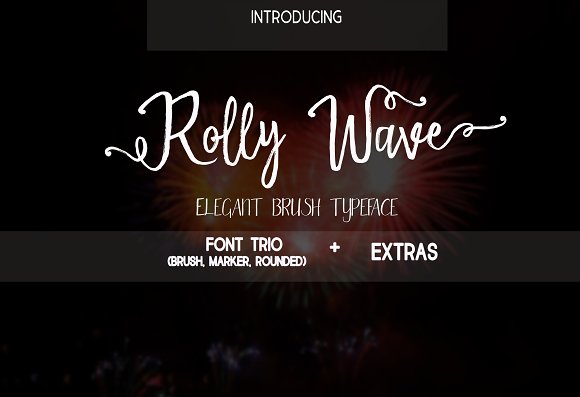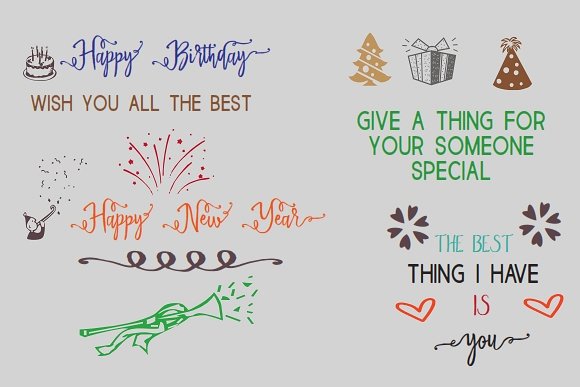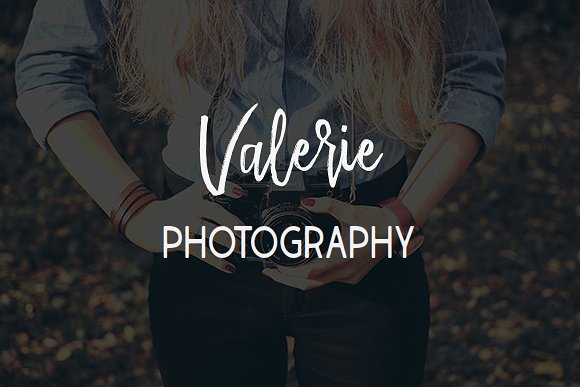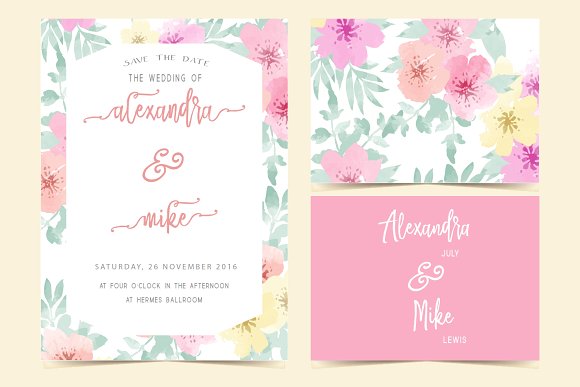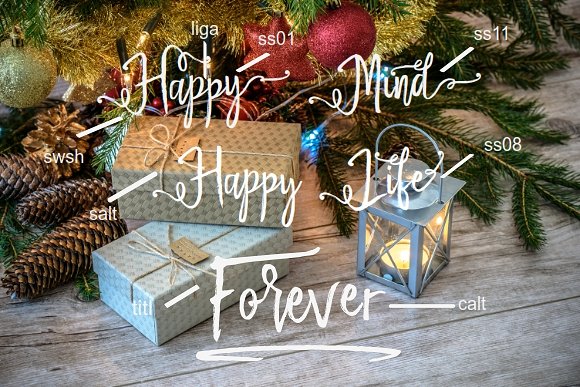
Rolly Wave Script Font
Rolly WaveScript is an elegant, unique and modern typeface. This font truly get inspired from rollercoaster and wave at the sea, This Font is very suitable for for wedding, invitation, card, table number, header menus, display, logos, address, stamps, packaging, greeting card, etc.
Rolly Wave Script has a full set of lowercase & uppercase, a large range of punctuation, numerals, and multilingual support and has more 350 alternates characters.
| Classification: | Brush Fonts, Handwritten Fonts, Script Fonts |